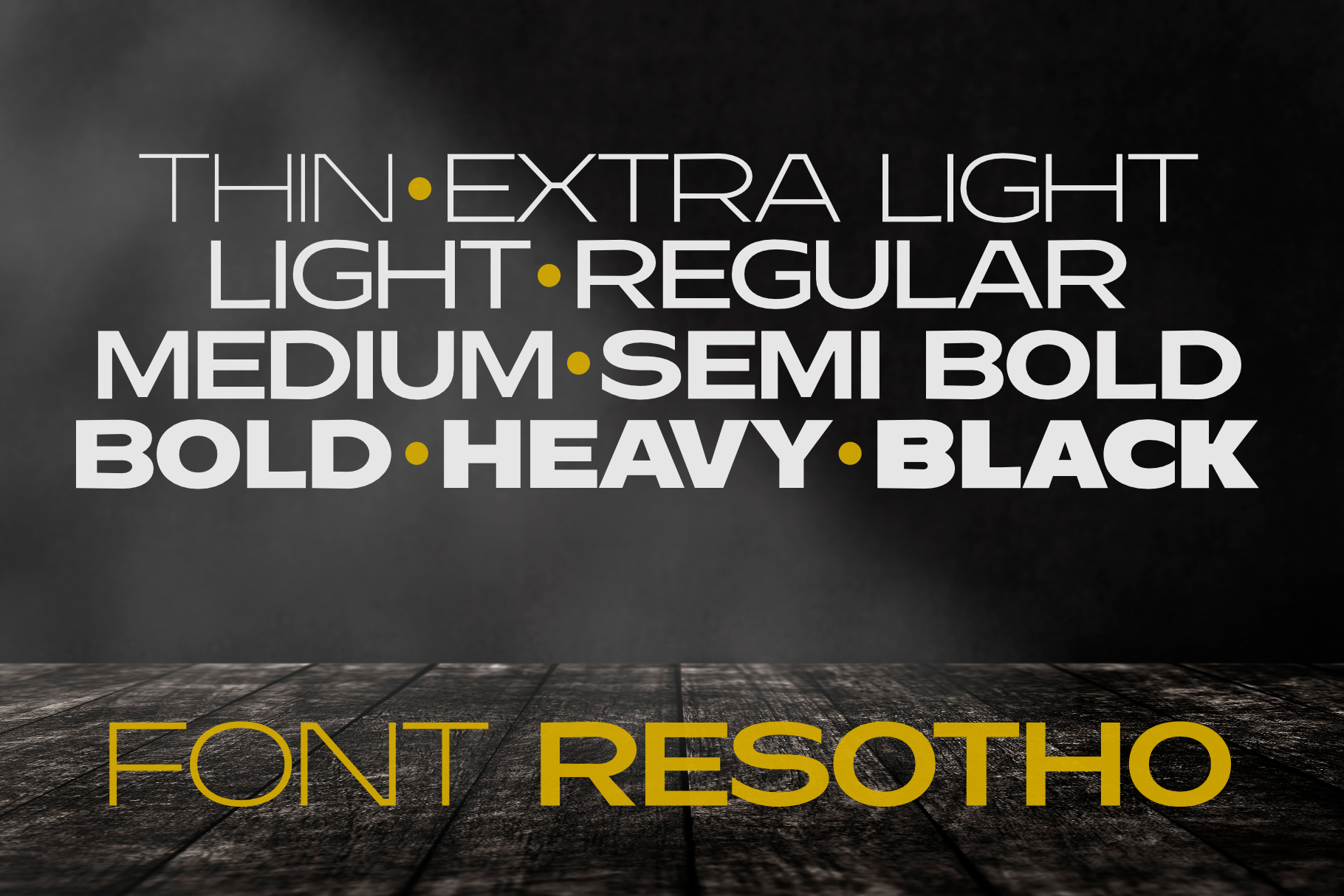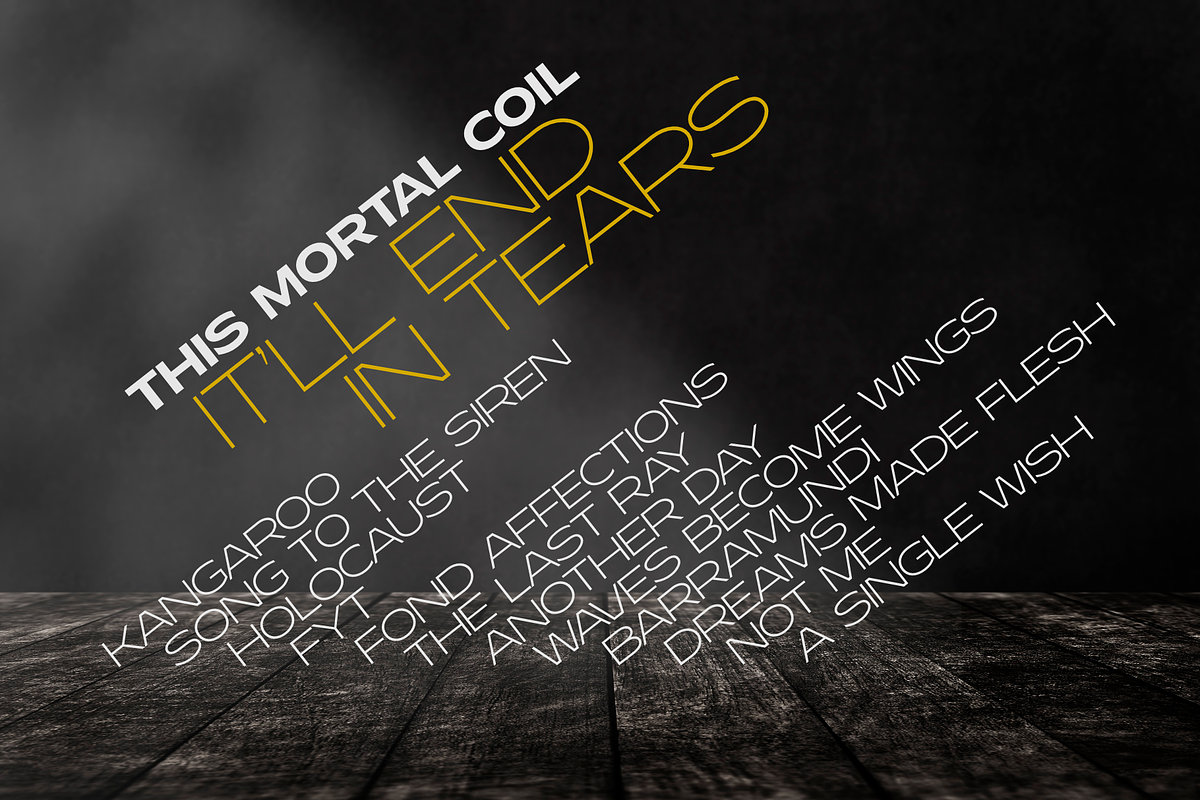
fonts family Resotho
Resotho is a geometric sans serif (uppercase) family. It comes in 18 weights: 9 uprights and 9 italics. Perfect for graphic design, branding, packaging design but very versatile. Language support covering Western, South, and Central Europe.